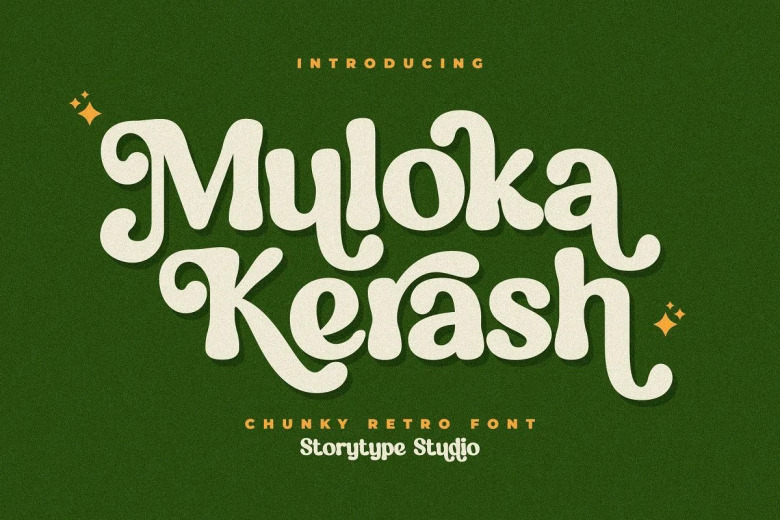
Muloka Kerash Font
Muloka Kerash is a fun and stylish serif font. With a nice retro vibe, this font is suitable for a wide range of design ideas. Add it confidently to your projects and you will be amazed by the outcome generated!
Muloka Kerash Serif Font